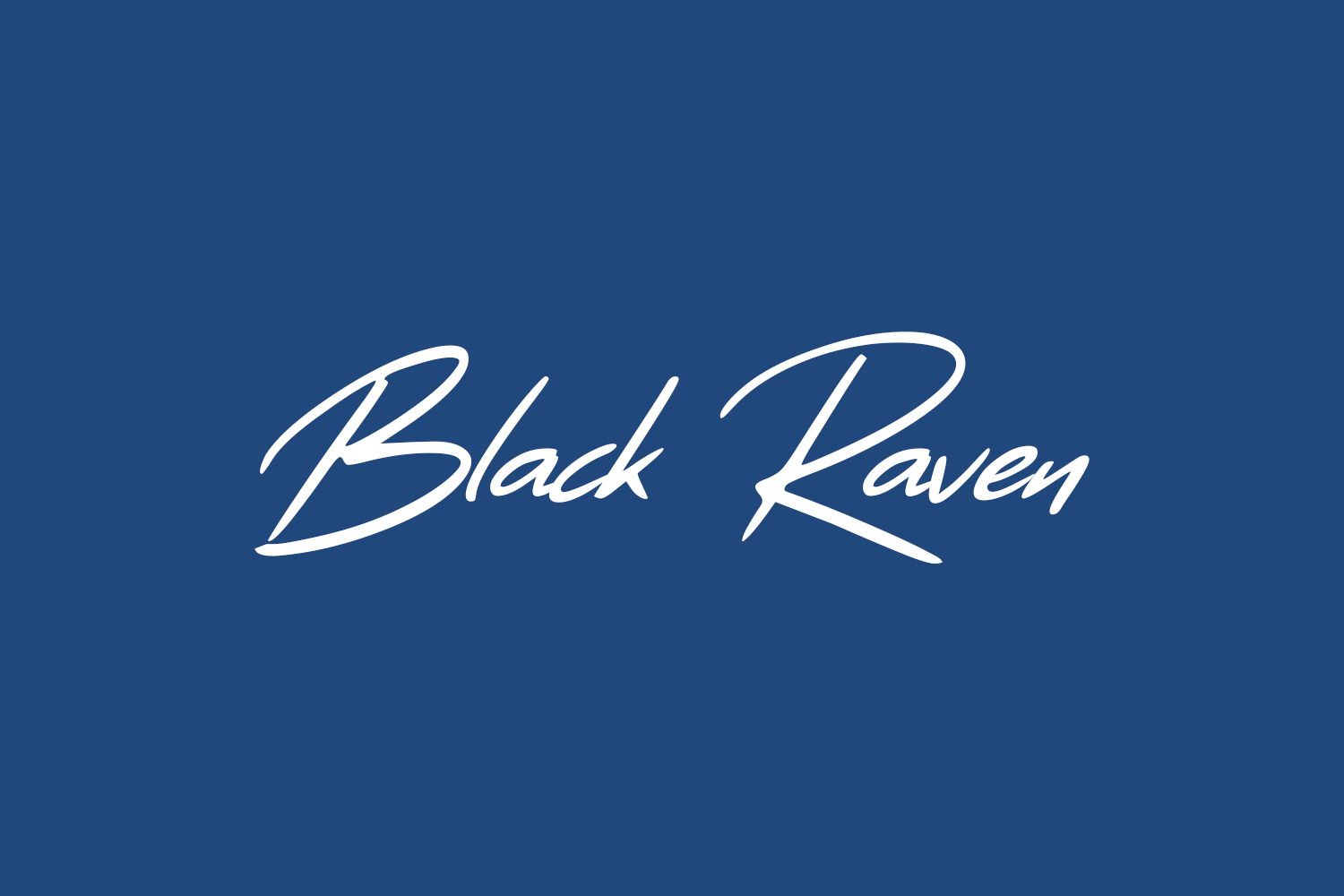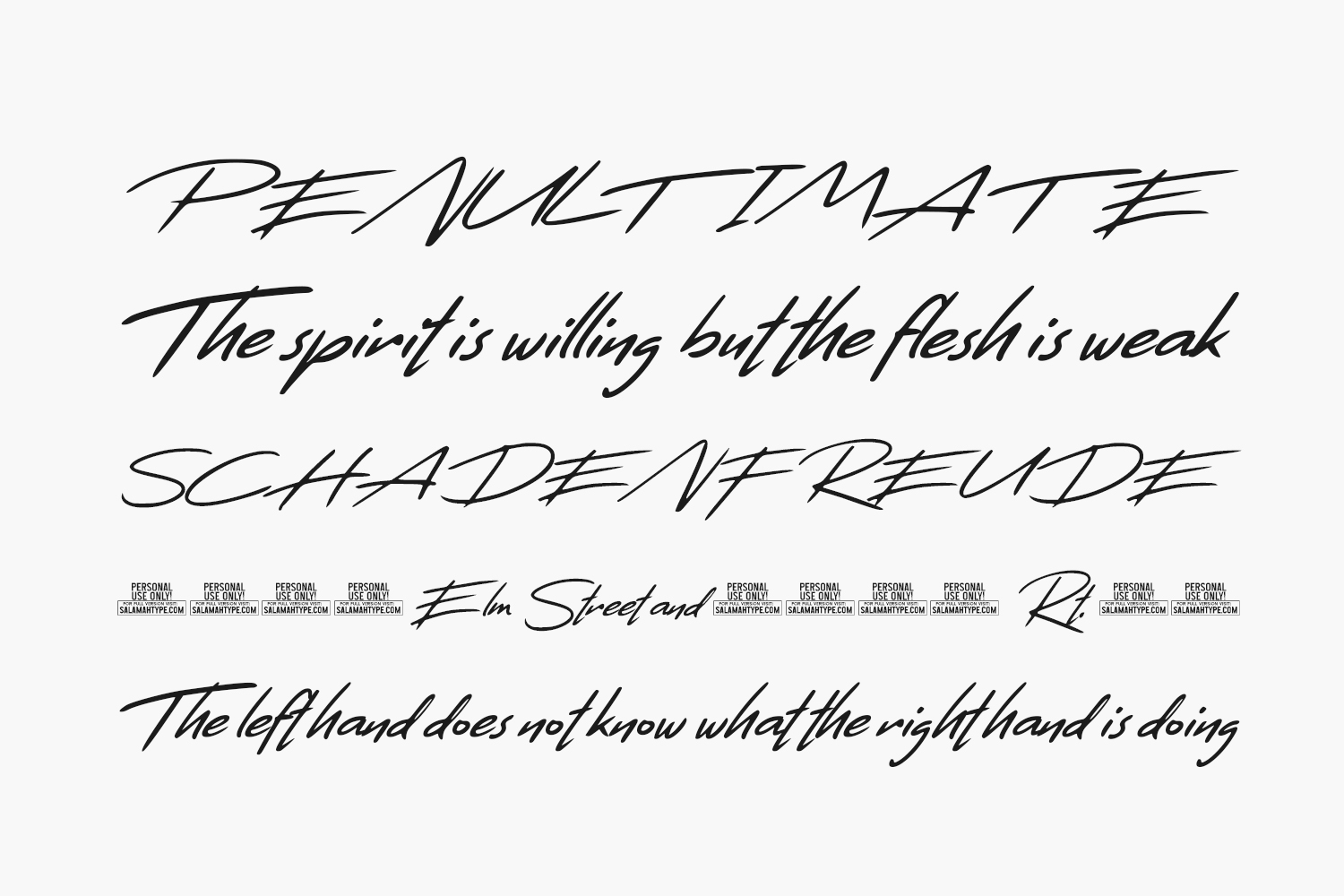
Black Raven Free Font is a stylish and edgy script font characterized by its asymmetrical design and natural aesthetics. This versatile font is an excellent choice for various projects, including branding, logos, social media posts, advertisements, product packaging, product designs, labels, photography, watermarks, and much more. With its unique appeal, Black Raven adds a touch of coolness to your designs, making them stand out from the crowd. Unleash your creativity and elevate your projects with the distinctive charm of the Black Raven font. Black Raven Free Font is a demo and free for personal use only. Please purchase the full version for commercial use.